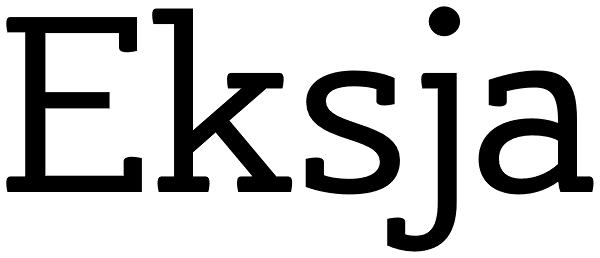
Eksja
Eksja is a modern slab serif available in four weights, each with a corresponding italic. All the fonts in the family have small caps, the extended latin character set, diacritical f-ligatures, enclosed numerals (numbers in circles) and...